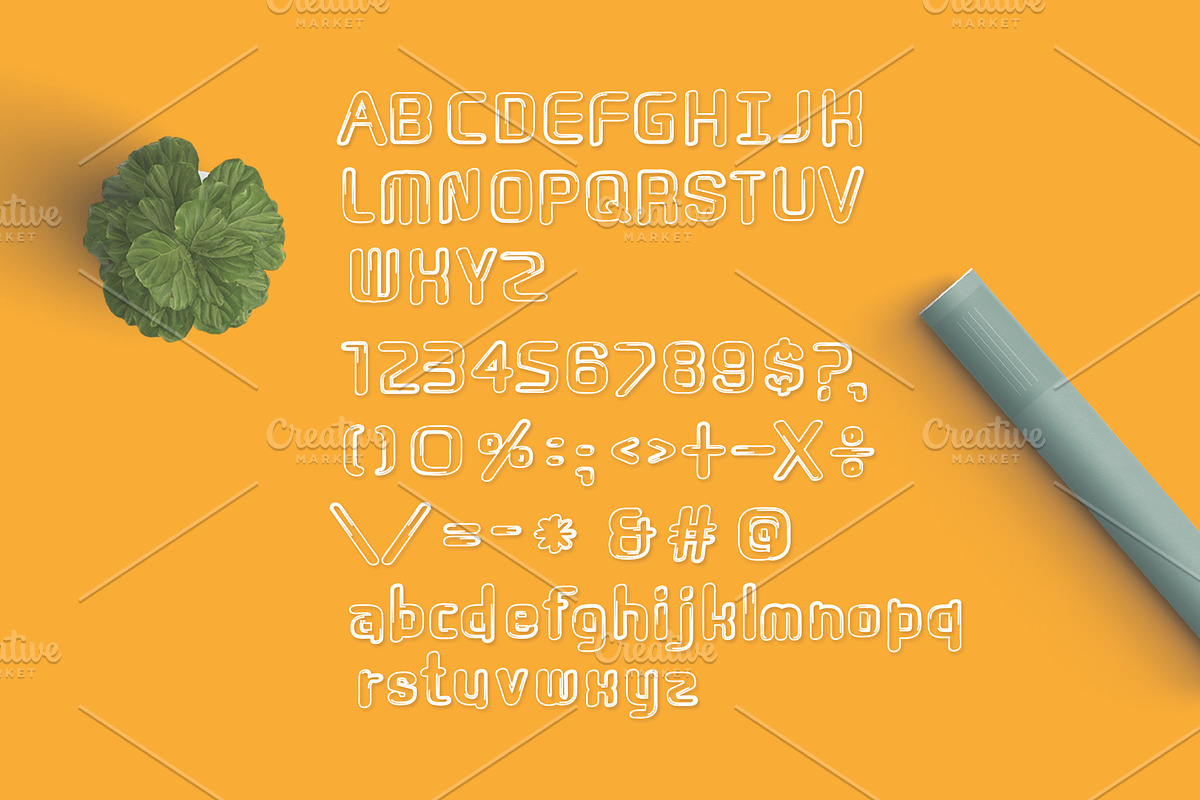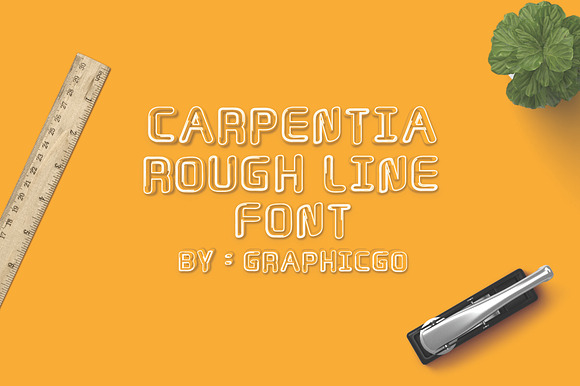
Carpentia Rough Line Font
Carpentia Rough Line Font is line grunge brush writing style. It 's perfect for organic products, cards, posters, wall art, branding, diy projects, greeting cards, labels, quotes, packaging, websites and much more.
Uppercase and Lowercase
Carpentia Rough Line Font by Graphicgo fits naturally into Branding, posters, packaging, typography.